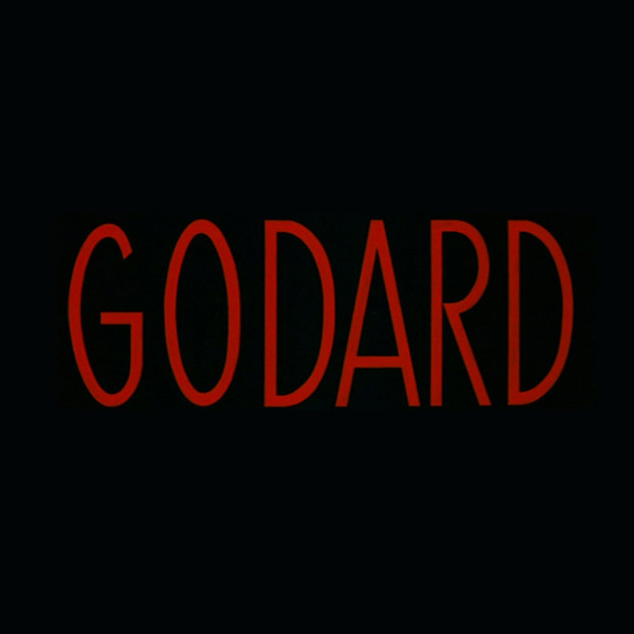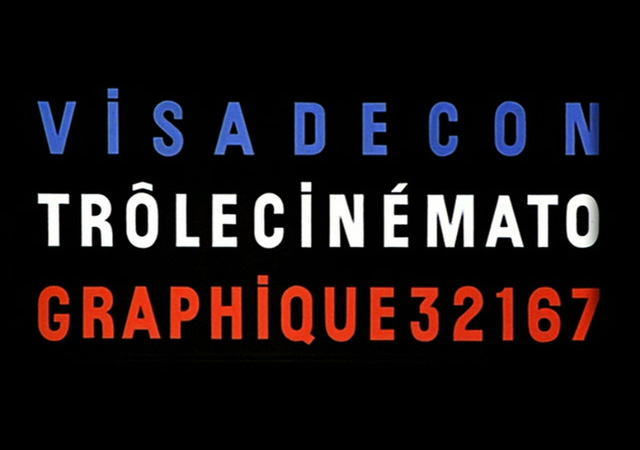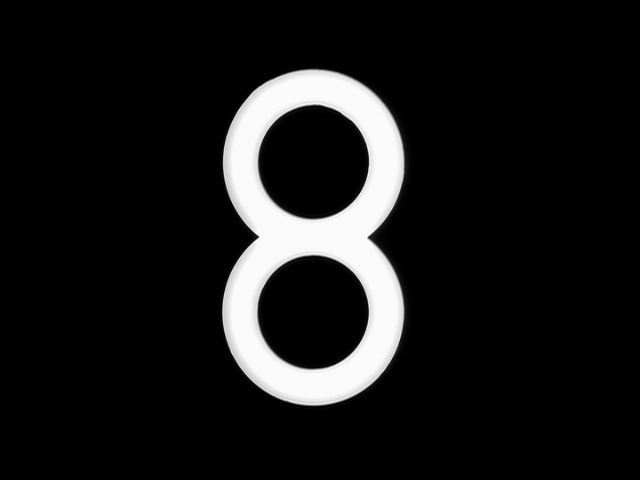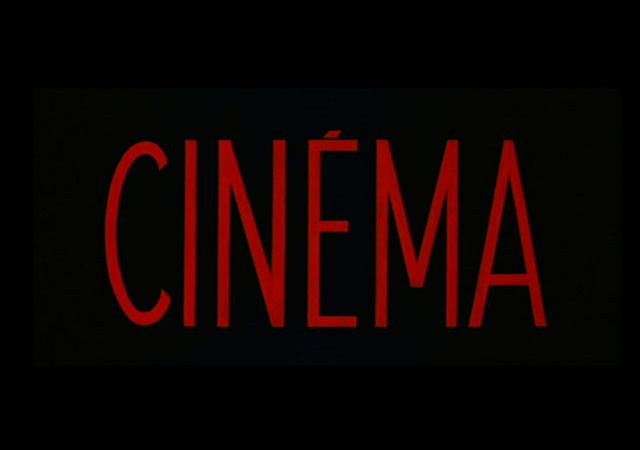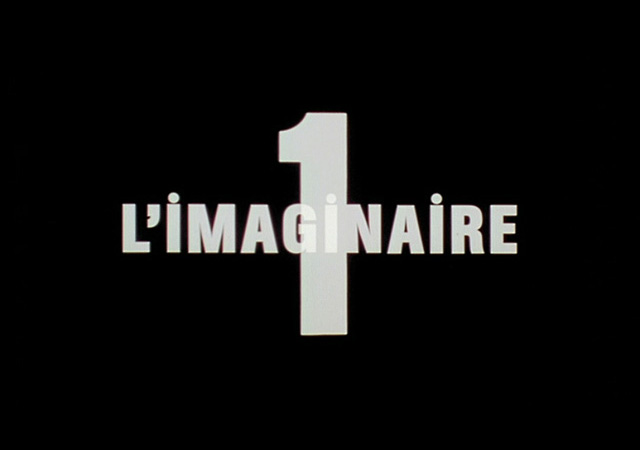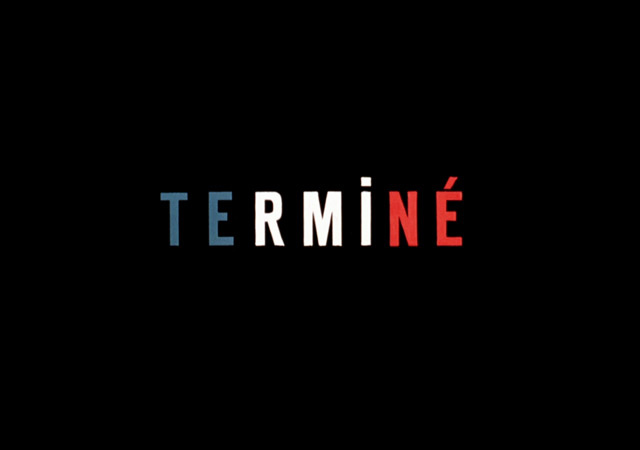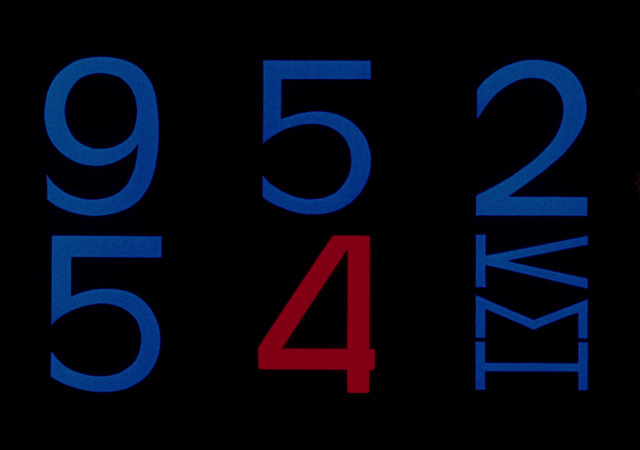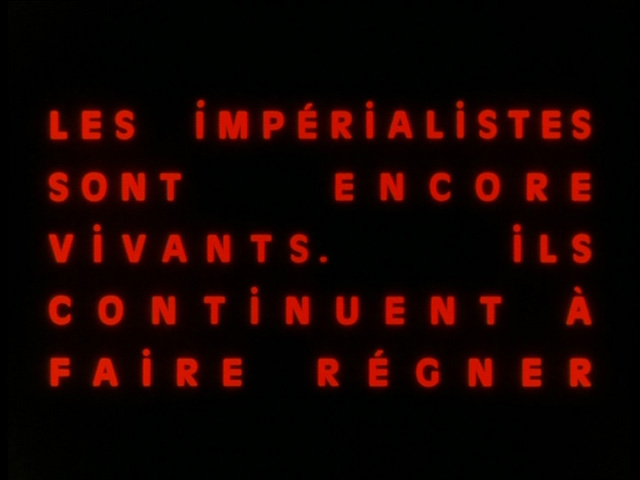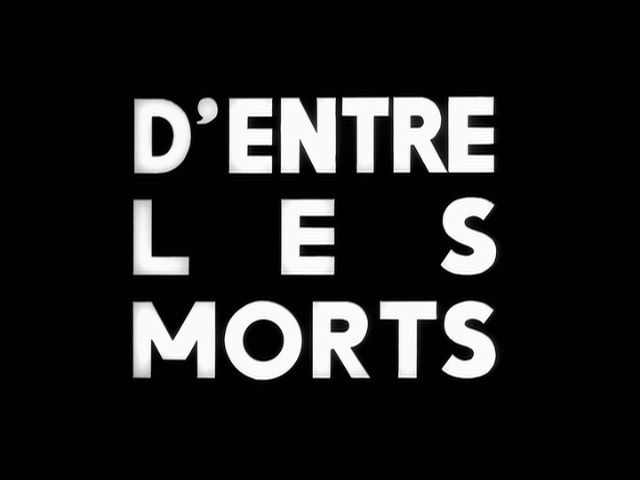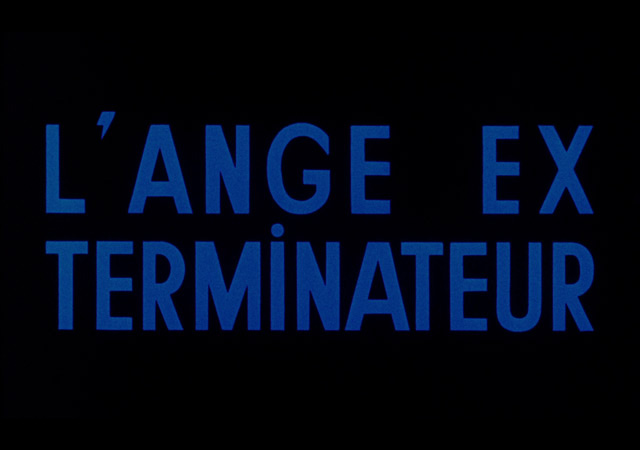
Typography is the real star in Jean-Luc Godard’s cinematography
With an abundance of A-list cinematographers and plenty of opportunities for glorious appearances from the stars of showbiz today, notable dates on the international film calendar, few events rival the spectacle and power of Cannes Film Festival. To celebrate the acclaimed French festival we pay a tribute to Jean-Luc Godard’s typography. “To me watching the films of Jean-Luc Godard is like watching a white Rauschenberg painting or listing to John Cage’s 4:33: it isn’t something I do for entertainment” writes Christian Annyas, a typophile who has seen her share of movies over the years. “They’re historically significant because he broke all the rules in the book” he adds.
“It’s quite interesting to see the designs evolve. In this digital age it’s refreshing to see type that isn’t made on a computer: the imperfect and handmade look of the letterforms, the bad kerning, the large gaps between letters and words, the justified blocks of text, the awkwardly dotted capital I’s. Even when he used an existing typeface – like Antique Olive in ‘Week end’ (1967) – the letterforms look as if they were cut out with an Exacto knife.
Sauve qui peut (la vie) (1980) is the last film featuring custom typefaces. In his later films Godard used existing typefaces like Futura, Univers, Helvetica and Garamond”.
Jean-Luc Godard is best known for his involvement in the influential film movement La Nouvelle Vague or New Wave during the 1960s. Godard’s liberal use of typography -from the opening title sequences, through the intertitles to the end (“Fin”) titles- is striking. Just like his films. Bold and beautiful, “the type for the film titles have a subtle yet charming ruggedness about them, the words look almost hand-drawn or as though the letters have been cut out with a scalpel and these imperfections give it a feeling of identity and craft” writes Tom Jarrett.
“The type is often large and commanding, in some cases it is layered over the top of the films but in a considered manner that also frames the shot. The type is sometimes animated with a sense of playfulness, for example in the opening titles for Bande à Part. Even though French New Wave stood for spontaneity and going against cinematic standards, it also adhered to certain consistencies which can also be seen in the selection of title designs below. Simple impactful type was used and with a color palette that mainly consists of the red, white and blue of the French flag. The words are sometimes broken, obscured or flipped out of position and often with wild kerning, yet the type always remains flat and legible. This natural and playful style has stood up to the test of time and is still as sharp as it was 50 odd years ago” he adds.
Godard’s career began in 1952 as a writer and critic for the esteemed film magazine Cahiers du Cinéma. It was here that the auteur alongside Éric Rohmer, Jacques Rivette, Claude Chabrol, and François Truffaut, reinvented what cinema is all about.